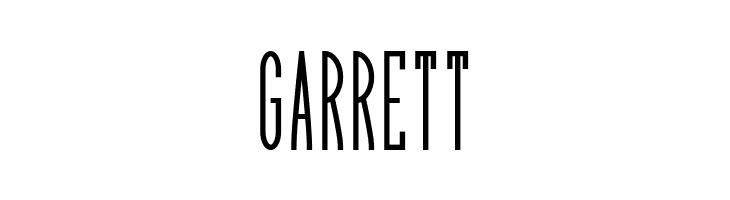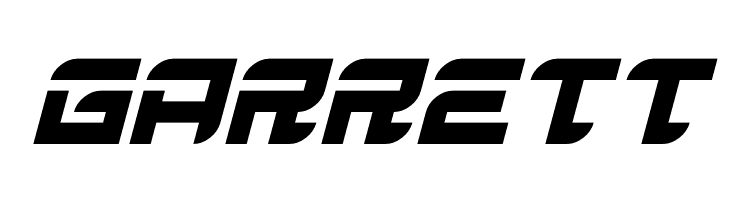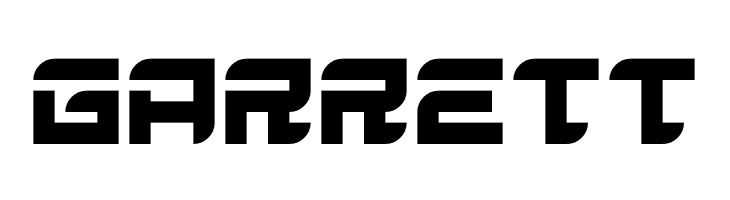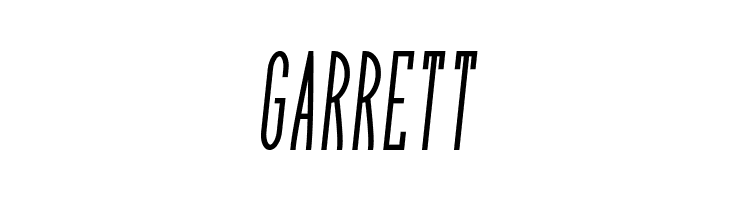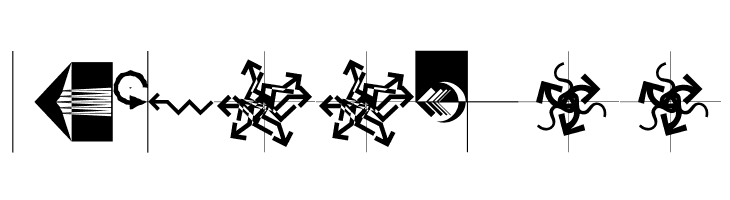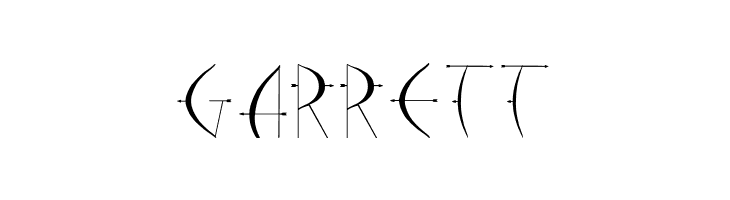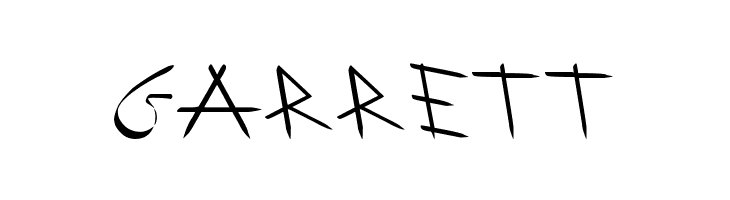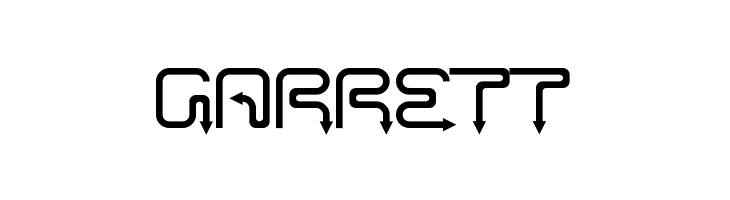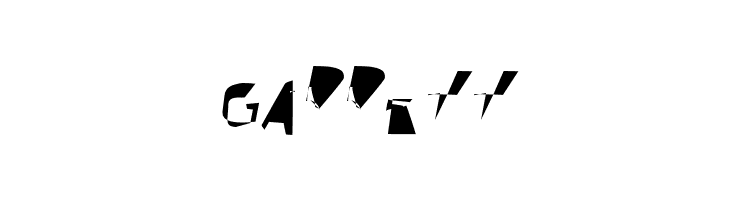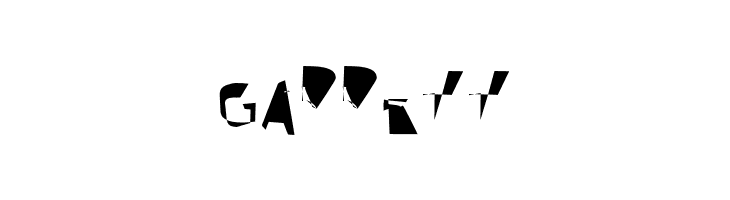
A modern, arrow-themed font with bold, geometric characters.
A modern, elongated, and narrow font with consistent stroke width.
A modern, italicized font with tall, narrow characters and high contrast.
A fragmented, abstract font with bold, angular shapes.
A dynamic, fragmented italic font with a modern, edgy style.
A bold, futuristic font with geometric shapes and sharp angles, ideal for tech-inspired designs.
A bold, futuristic font with sharp angles and a dynamic slant.
A decorative set of abstract, arrow-themed symbols with a modern, geometric style.
An artistic, angular font with a hand-drawn, edgy style.